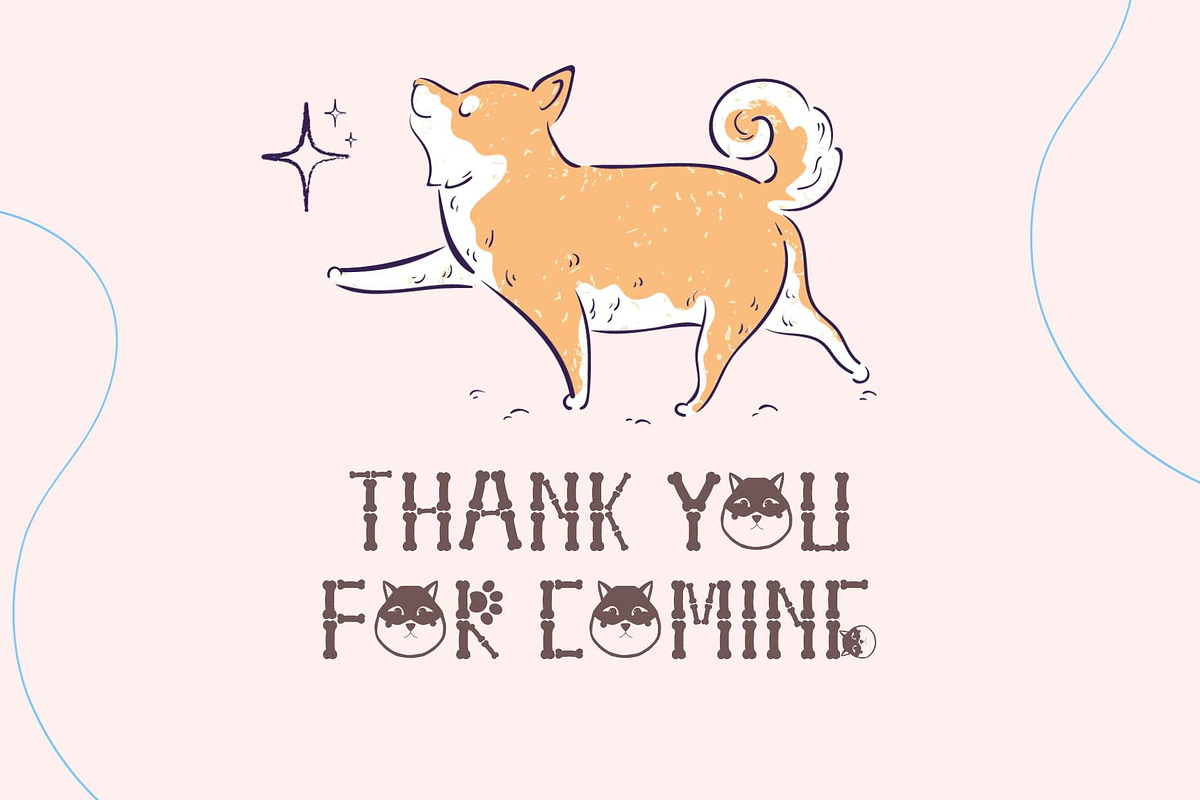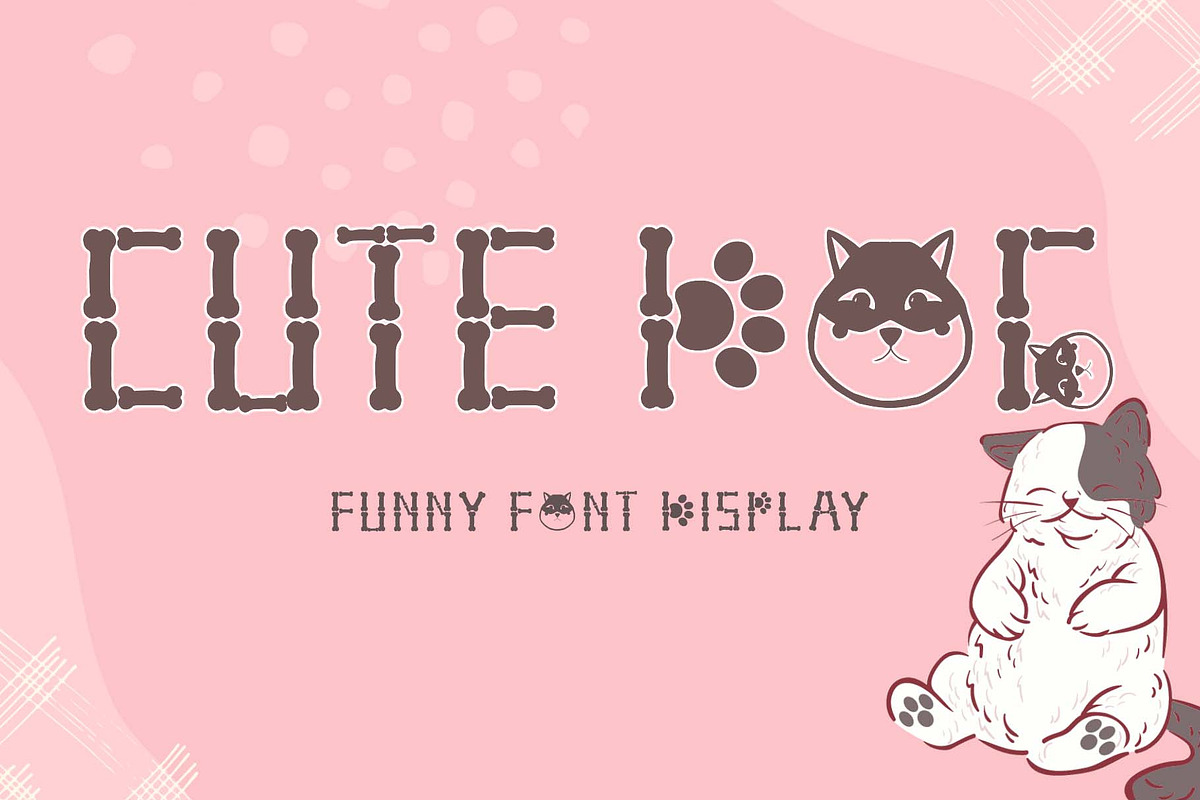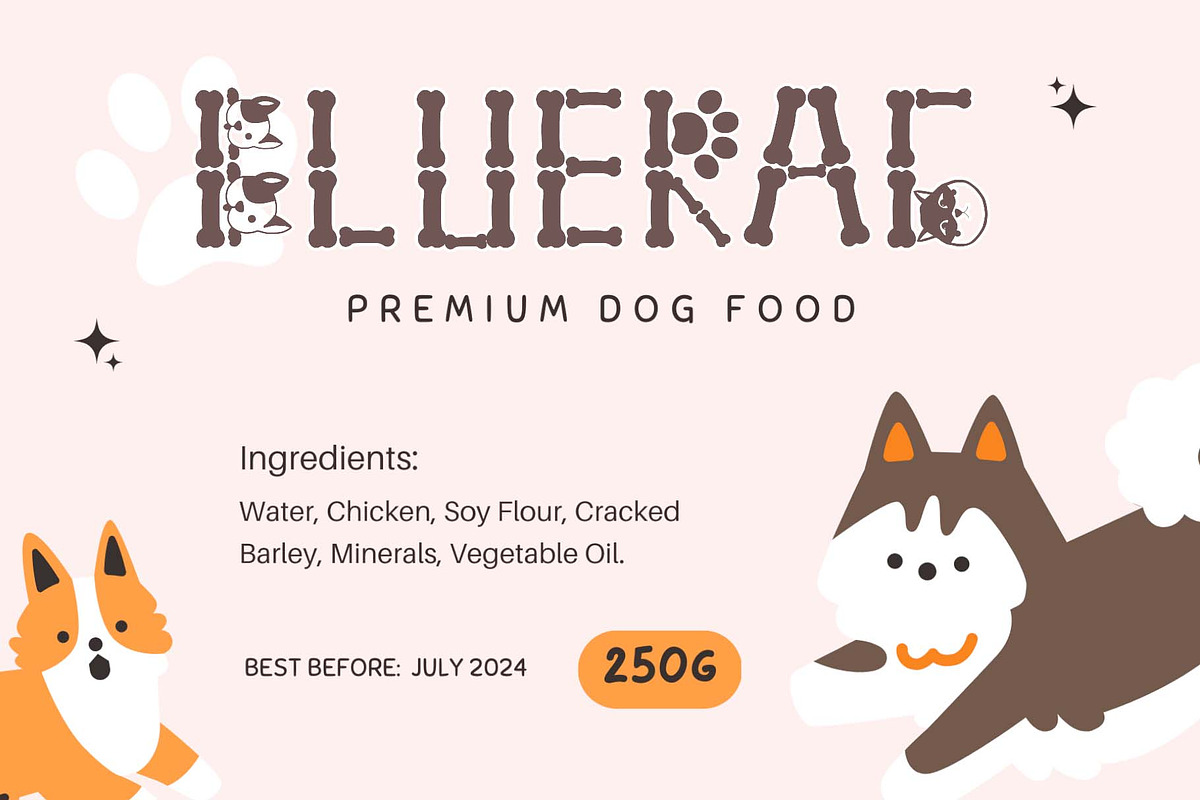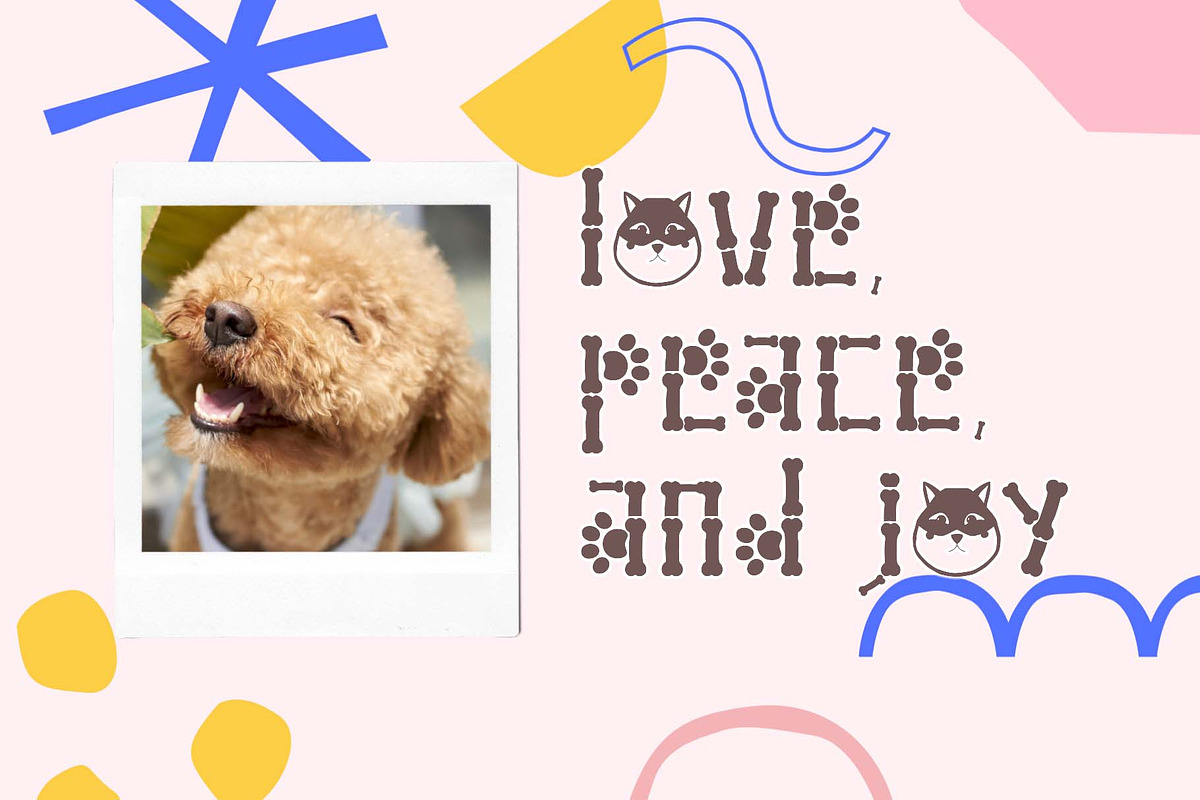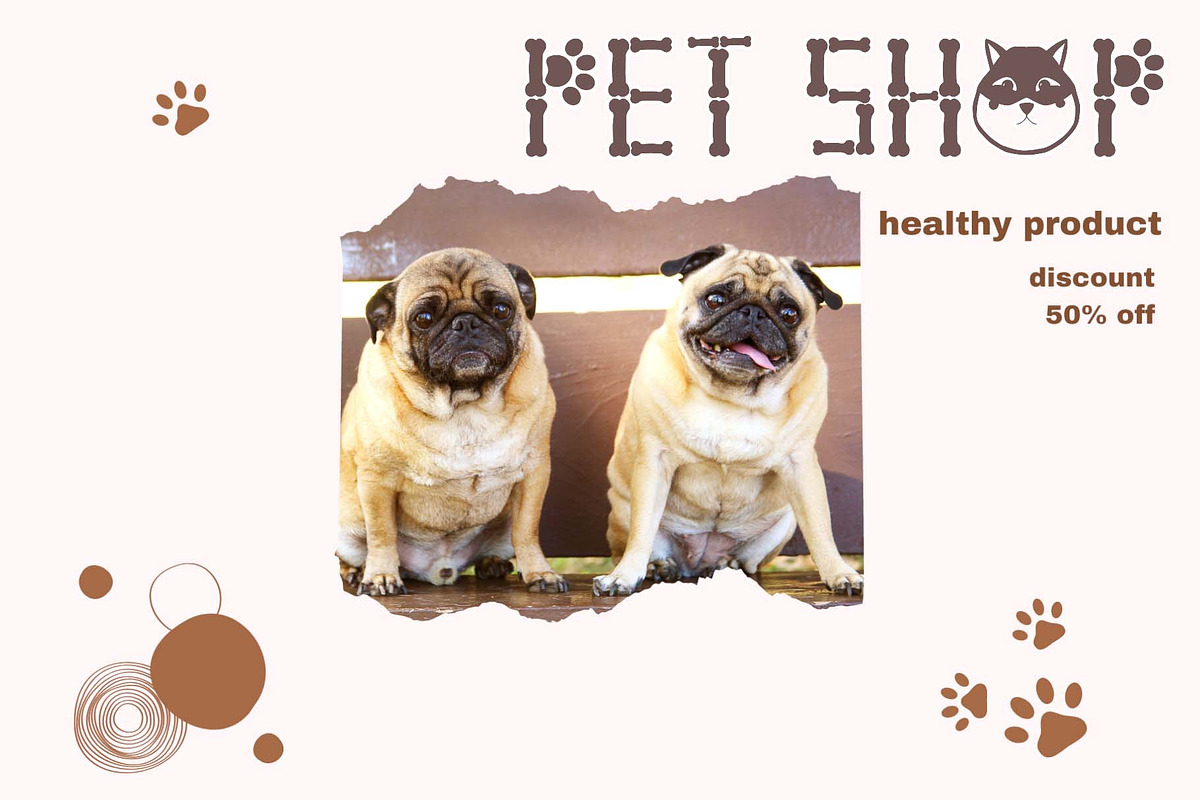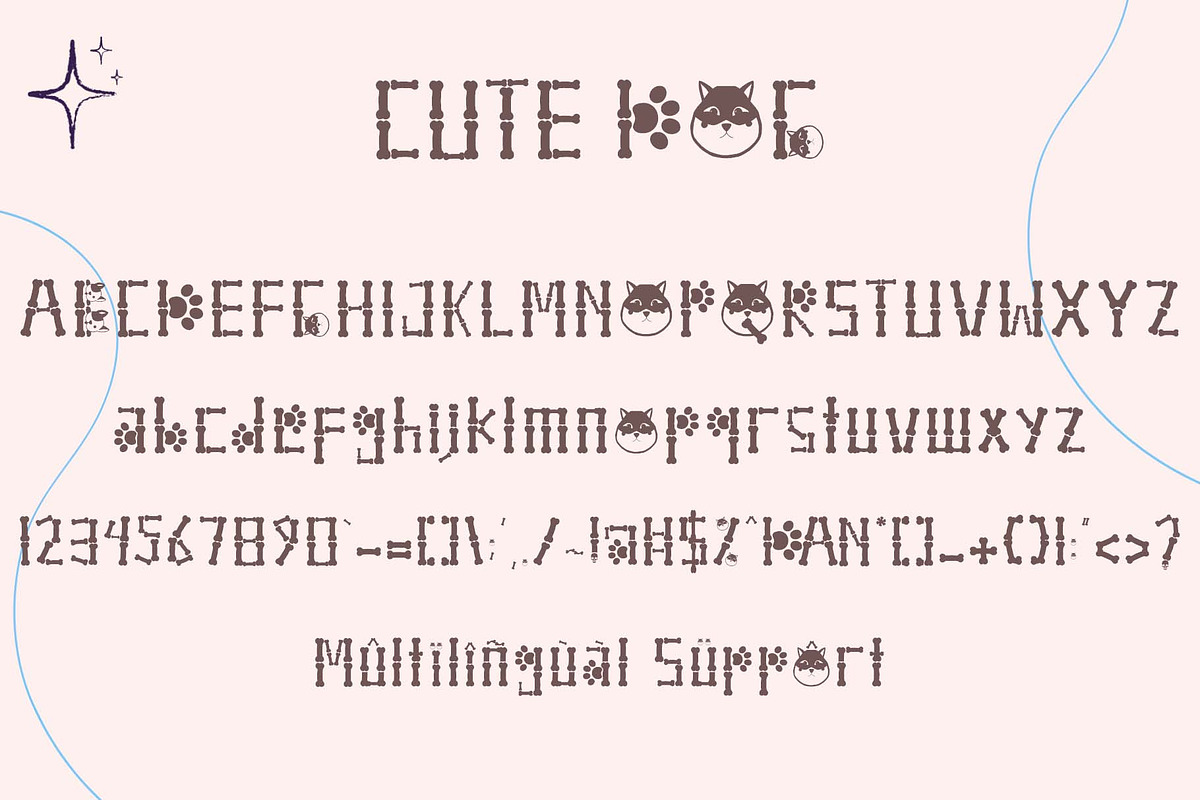
Cute Dog
"Cute Dog" is a display font with decorative bones, dog heads, and dog paws. This font is equipped with lowercase, uppercase, numerals, punctuation, and multilingual support. Suitable for posters, business branding, logos, banners, stickers, magazine titles, film titles, and more.